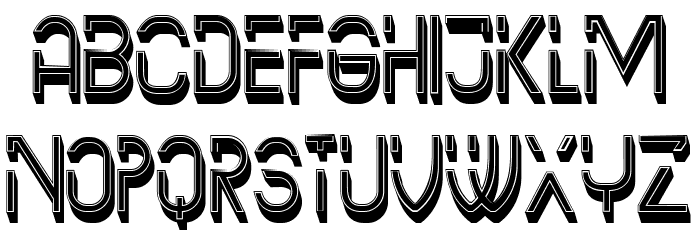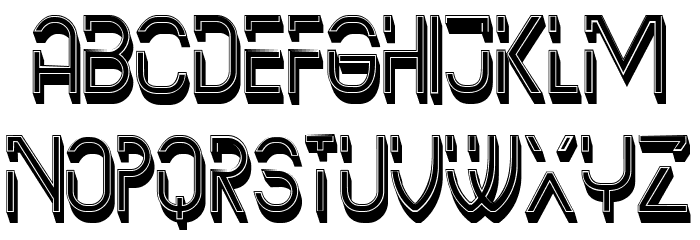
Anede Filled Regular Font
This font features a bold, geometric design with a filled interior and a distinct outline that creates a striking visual effect. The uppercase letters are uniform in height, with angular edges and a futuristic aesthetic. The characters are well-defined, with a consistent stroke width that enhances readability while maintaining a decorative appeal. The style is reminiscent of digital or sci-fi themes, making it suitable for modern and tech-oriented designs. The font's unique structure and bold presence make it ideal for capturing attention in various creative projects.
A bold, geometric font with a futuristic, outlined design.
- Font: Anede Filled Regular
- Proposed Projects: Ideal for tech-themed posters, video game titles, sci-fi book covers, and modern branding.